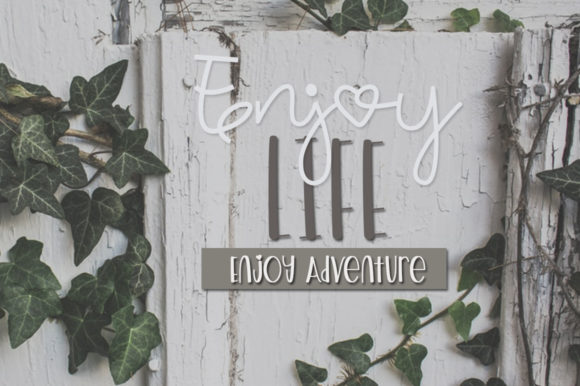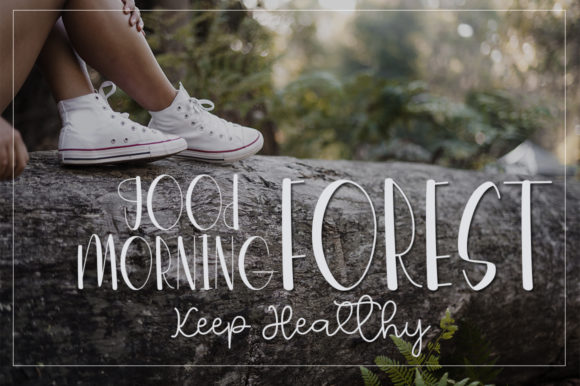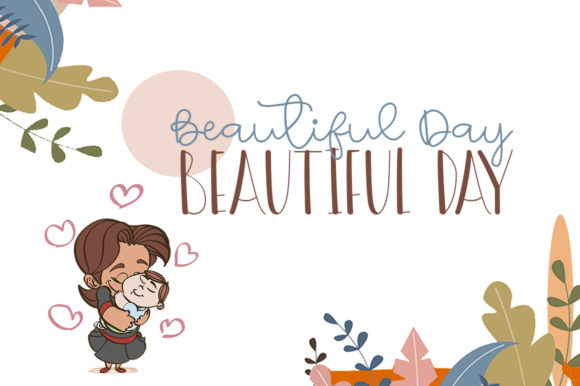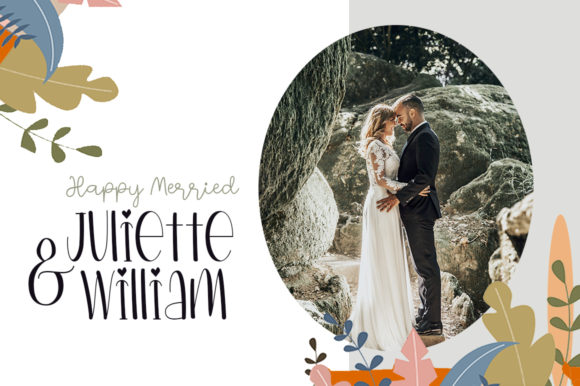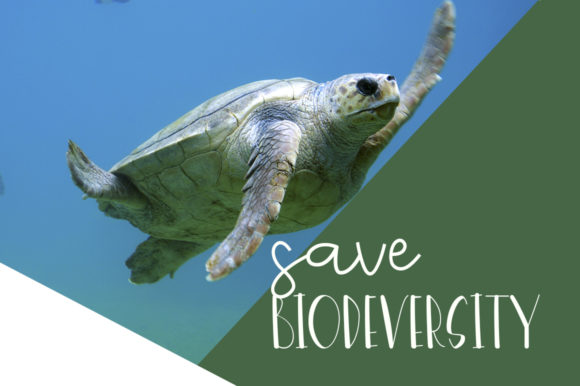
About Rain Forest Adventure Font
Rain Forest Adventure is an extraordinary duo font that comprises both a display and a handwritten style. Its versatility knows no bounds, making it a perfect match for a diverse range of design projects, taking them to new heights of creativity. Add this font to your favorite creative ideas and watch in awe as they come alive with a touch of magic!
The display font of Rain Forest Adventure boasts a striking and captivating appearance, ideal for headlines, titles, and attention-grabbing elements. Its bold and commanding presence demands attention, setting the stage for a bold and impactful design.
On the other hand, the handwritten style of Rain Forest Adventure brings a touch of authenticity and personal charm. With its flowing strokes and natural appeal, it’s the perfect choice for adding warmth and sincerity to your designs. It’s particularly well-suited for invitations, quotes, and any project that requires a personal and human touch.
The harmonious blend of both styles in Rain Forest Adventure allows you to create stunning designs that effortlessly blend elegance and creativity. Whether you’re working on branding, packaging, posters, or social media graphics, this font duo has you covered.
Embrace the magic of Rain Forest Adventure and witness how it transforms your ideas into captivating visual experiences. It breathes life into your designs, infusing them with character and personality, making them stand out in a sea of ordinary creations.
Fall in love with Rain Forest Adventure, and let it become your go-to font for unleashing your creative brilliance. The possibilities are endless, and the results are nothing short of spectacular. Elevate your designs to new levels of excellence with the enchanting versatility of Rain Forest Adventure. Let it be the driving force behind your most cherished and imaginative projects.